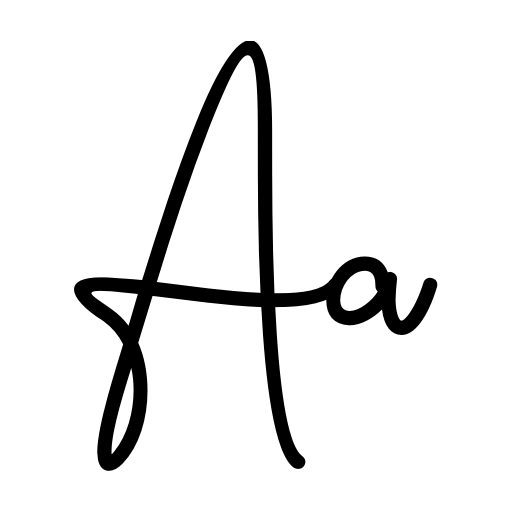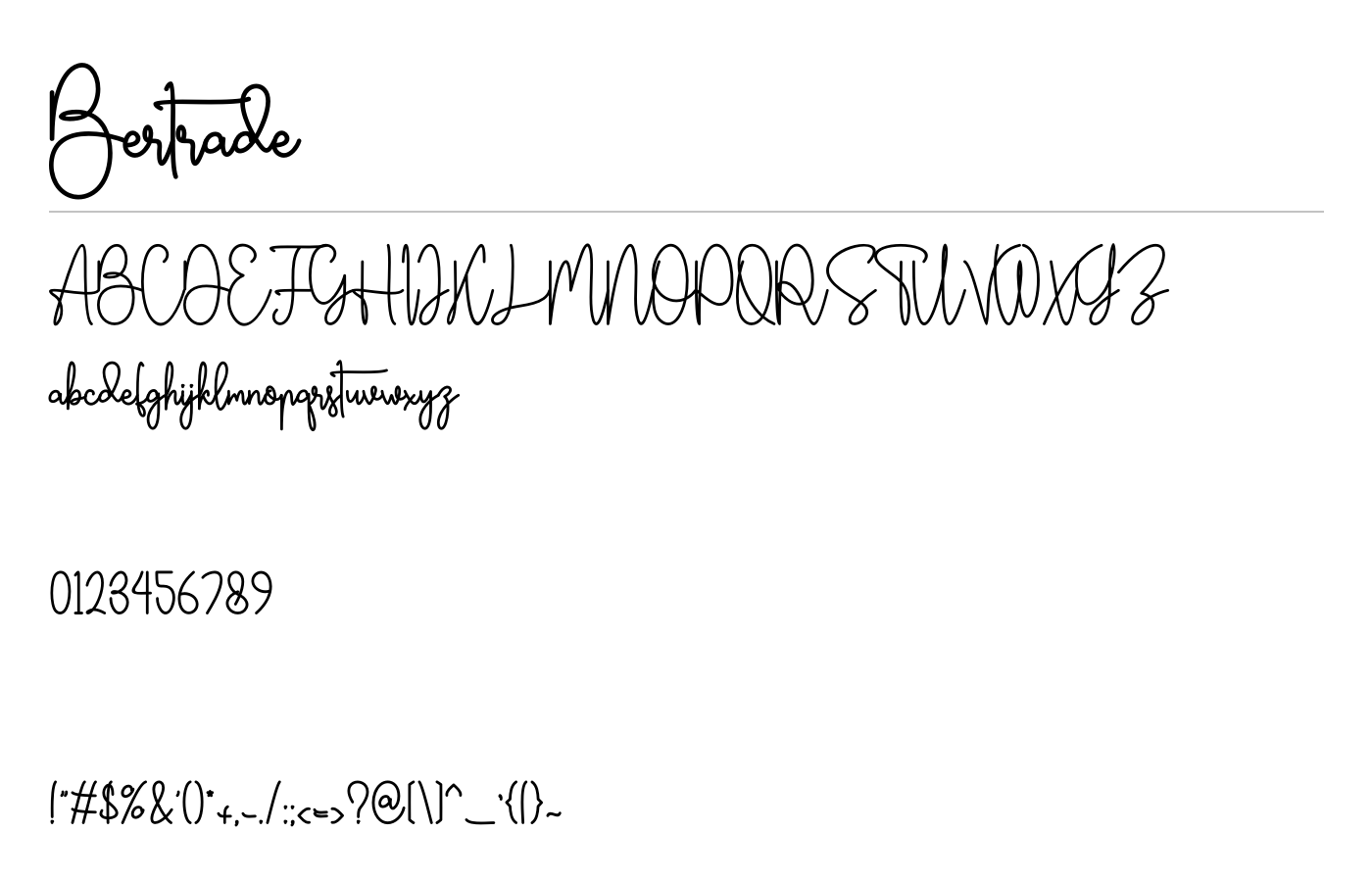
Bertrade is a delicate, handwritten script font characterized by its thin, flowing lines and whimsical letterforms that convey a playful yet elegant personality. Its narrow width and lightweight strokes make it perfect for creative branding, stylish logos, and invitations where a personal, artistic touch is desired. This font shines in designs that need a charming, approachable feel without sacrificing sophistication.
Bertrade Font